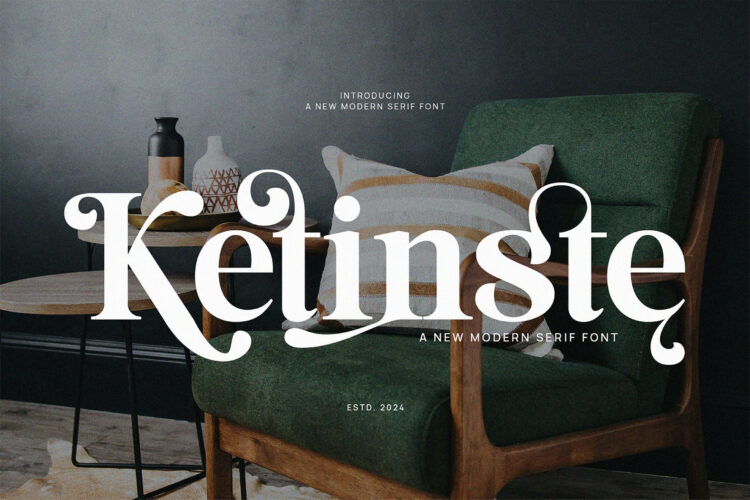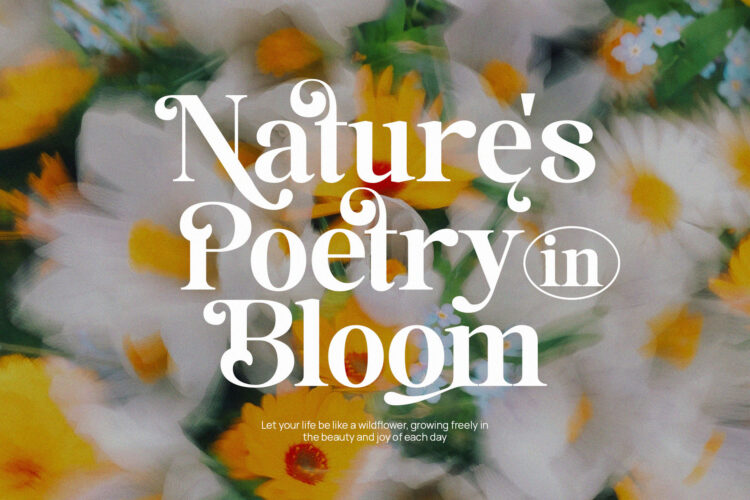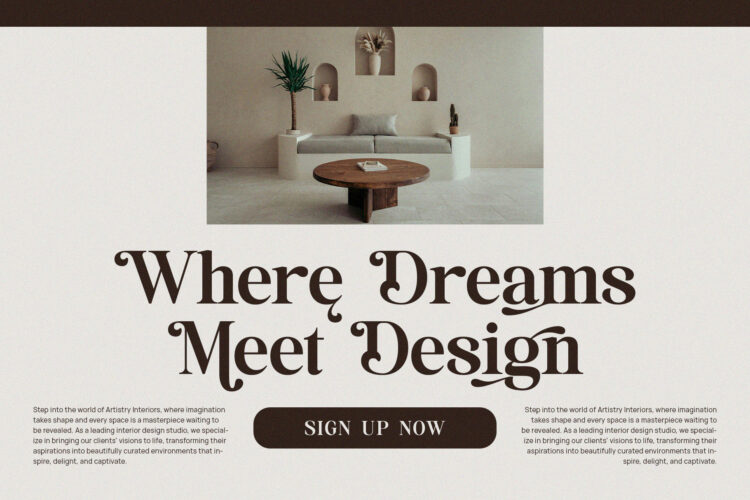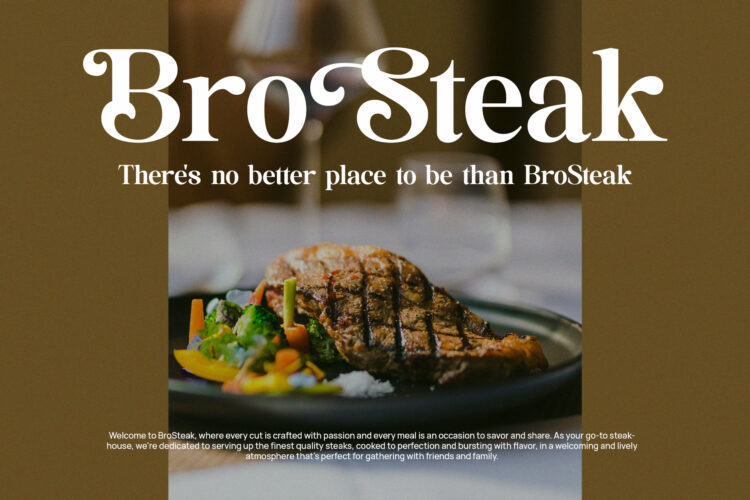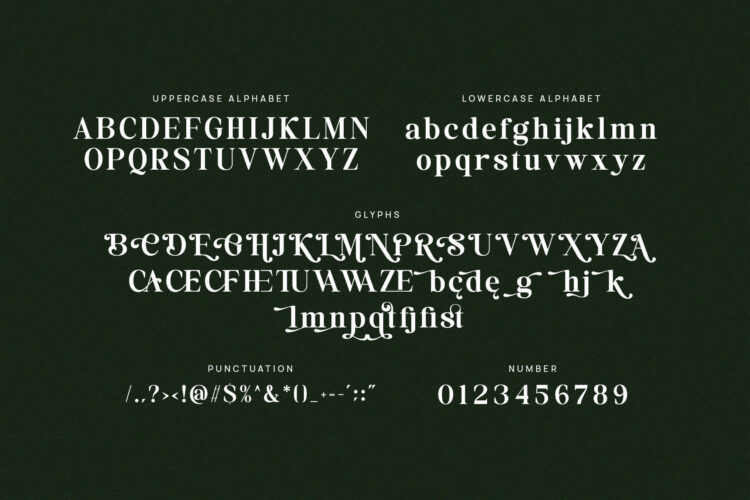
Introducing our new Ketinste, modern serif font with elegant style this is perfect for branding, logos, invitation, magazines, product packaging and more.
Ketinste – Elegant Serif Font